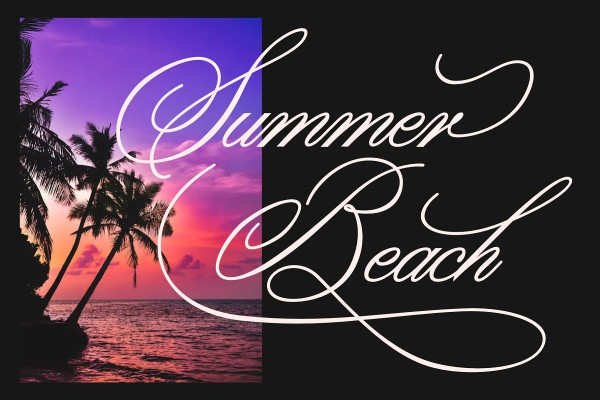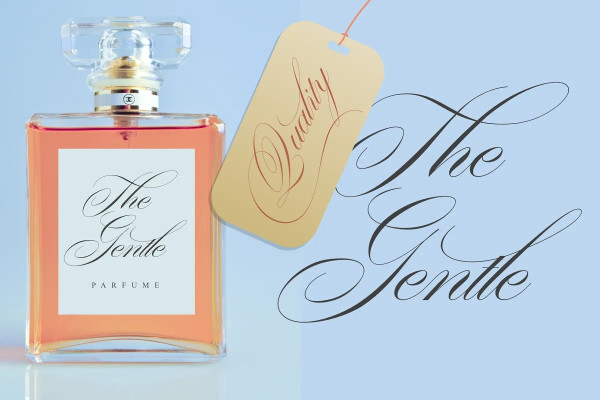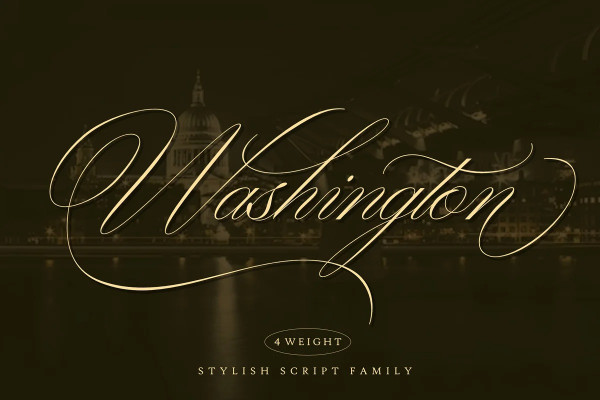
Washington Calligraphy Font
Washington Calligraphy Font, this font is calligraphy font with a classic style and a touch of elegance, inspired by the handwriting of Italian women and ancient manuscripts. Carefully designed to work together in harmony that makes it very suitable for any design work that requires a classic, formal or luxurious.
multilingual support and special ligatures